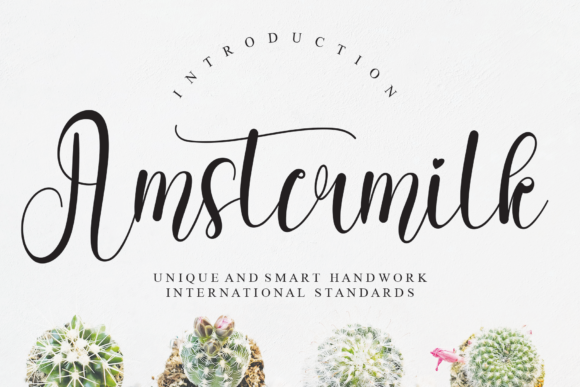
Introducing Amstermilk Script Font, the Enchanting Handcrafted Beauty:
Step into a world of charm and elegance with Amstermilk Script Font, a captivating font family that will infuse your creative projects with a touch of magic. Uniquely designed by the talented Roronoa zoro.S.P.D., this font exudes a free-spirited and joyful vibe that's perfect for adding a personal touch to your designs.
Amstermilk Script is not just a font; it's an artistic masterpiece meticulously crafted to capture the essence of handwritten beauty. With its playful loops, graceful strokes, and a touch of whimsy, this font will transform your words into works of art. Its unique character and eye-catching style make it a standout choice for fashion brands, invitations, branding, logos, quotes, and any project seeking a burst of individuality.
Immerse yourself in a Realm of Versatility:
Amstermilk Script Font is a versatile font family that seamlessly adapts to a wide range of projects, allowing you to explore your creativity without limits. Whether you're designing a captivating logo that speaks volumes about your brand's personality or crafting stunning invitations that leave a lasting impression, Amstermilk Script is the perfect companion.
Design eye-catching social media posts that captivate your audience, or create captivating website headers that draw visitors in with their unique charm. With Amstermilk Script, your designs will radiate authenticity and captivate the hearts of your customers, leaving a lasting impact that sets you apart from the ordinary.
Embrace the Timeless Beauty of Amstermilk Script:
Amstermilk Script Font is more than just a font; it's an investment in timeless elegance. As fashion trends change and design aesthetics evolve, Amstermilk Script remains a classic choice that will stand the test of time. Its timeless beauty ensures that your designs will always radiate a sense of sophistication, making a statement that resonates with your audience.
Let Amstermilk Script Font ignite your creativity and transform your designs into extraordinary expressions of art. Experience the joy of crafting projects that exude personality and capture the essence of your unique style. Download Amstermilk Script Font today and embark on a creative journey where your imagination knows no bounds.